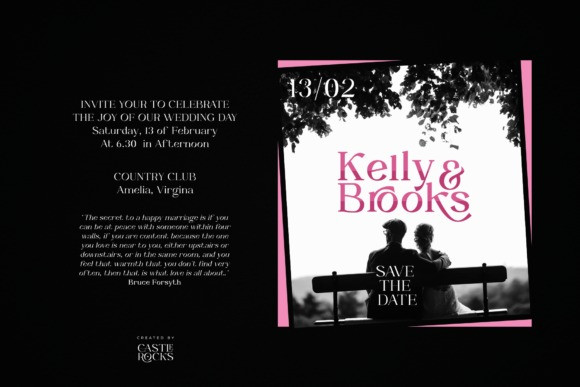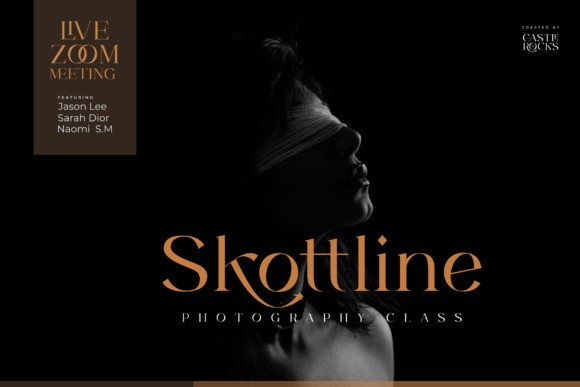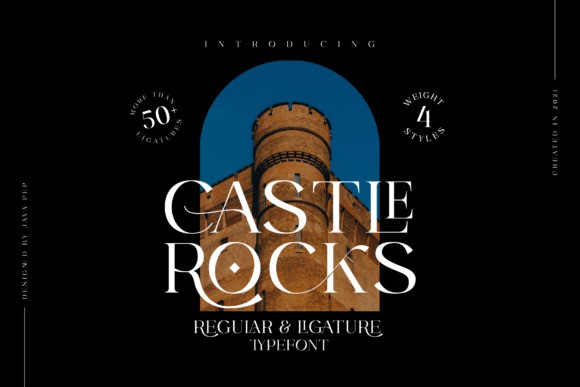
Castle Rocks Font
Castle Rocks Serif Font is a simple, elegant and thin lettered serif font. It can be used for various purposes such as logos, wedding invitations, headings, t-shirts, letterhead, signage, labels, news, posters, badges and so much more.